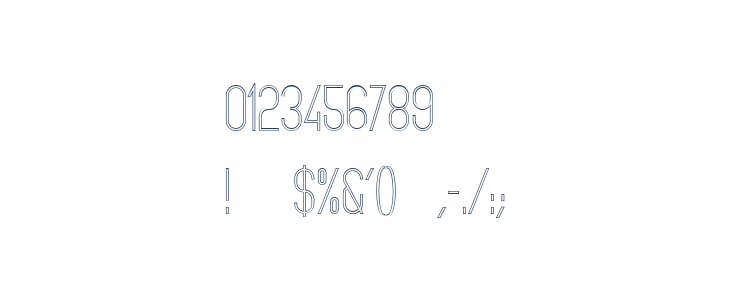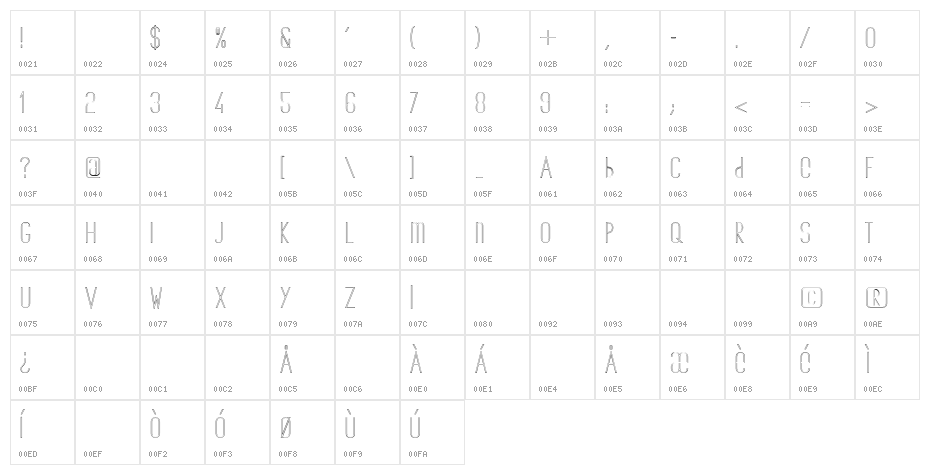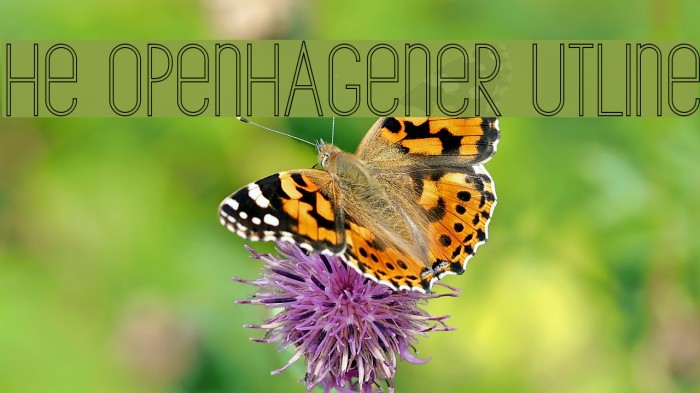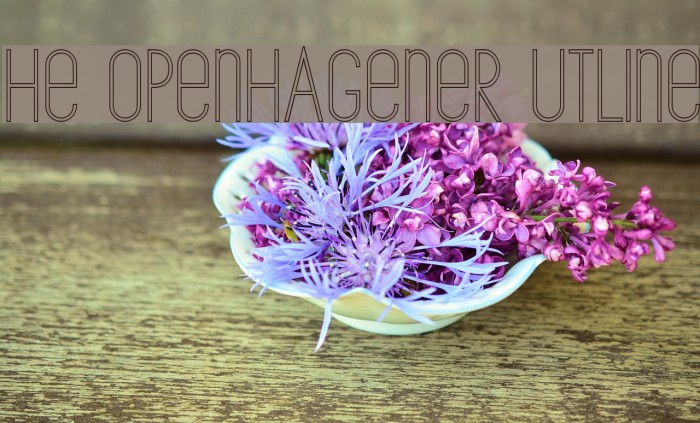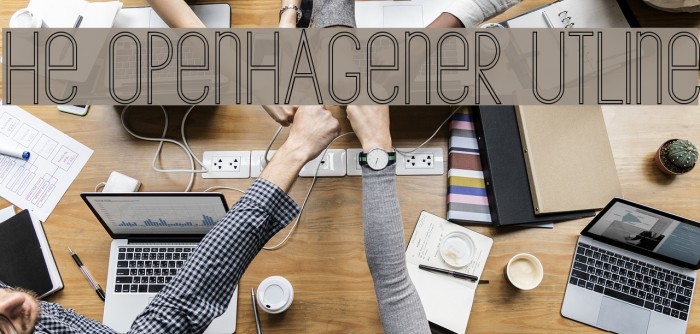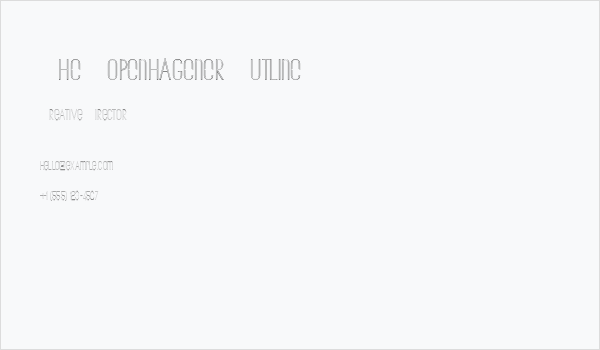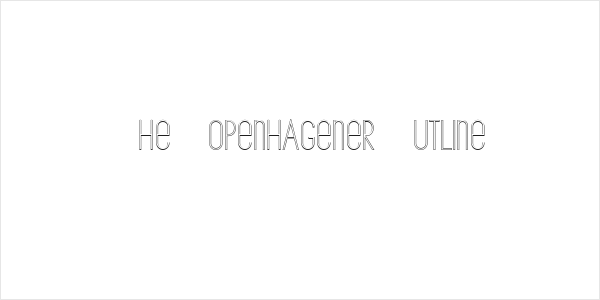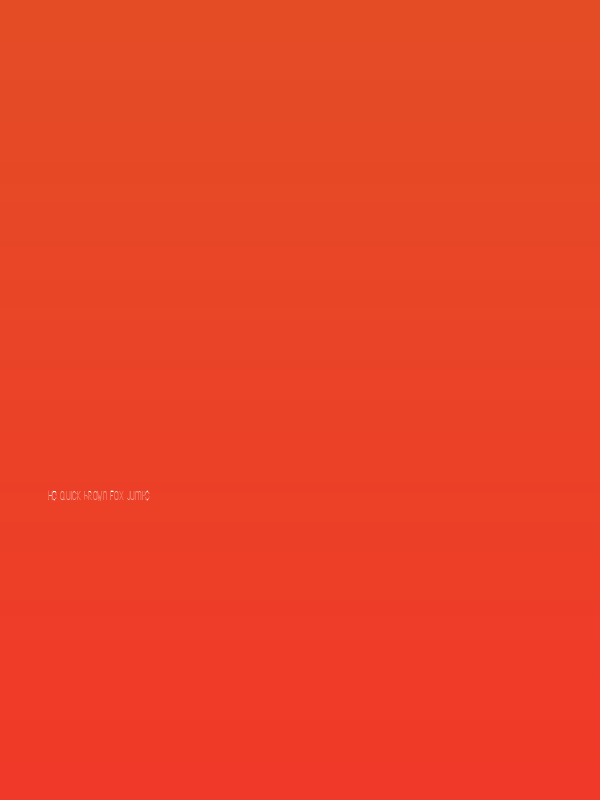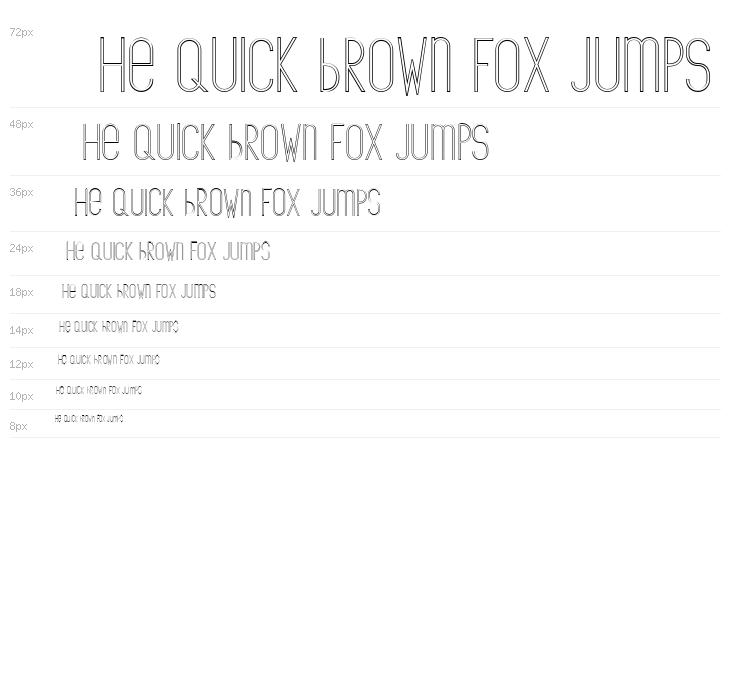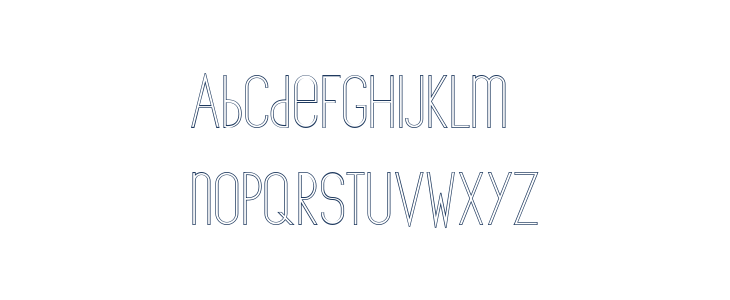
The Copenhagener Outline Font
The Copenhagener Outline Description
This font features a unique outline style that gives it a modern and artistic appearance. The characters are composed of thin lines that form the outer edges of each letter, creating a hollow effect. This design choice makes the font stand out, offering a sense of elegance and sophistication. The uppercase and lowercase letters maintain a consistent height, while the numbers and special characters are crafted with the same attention to detail. The overall look is clean and minimalistic, making it suitable for contemporary design projects.
| Proposed Projects | Ideal for branding, posters, and modern web design where a stylish and unique typeface is desired. |